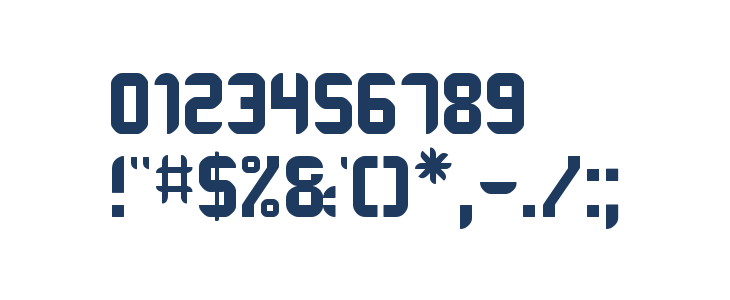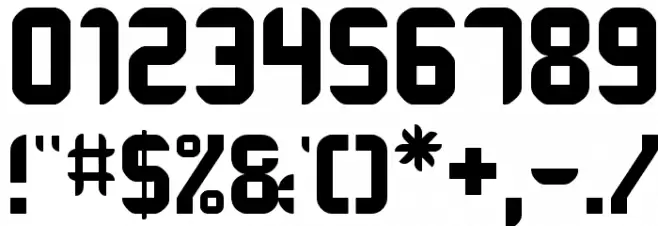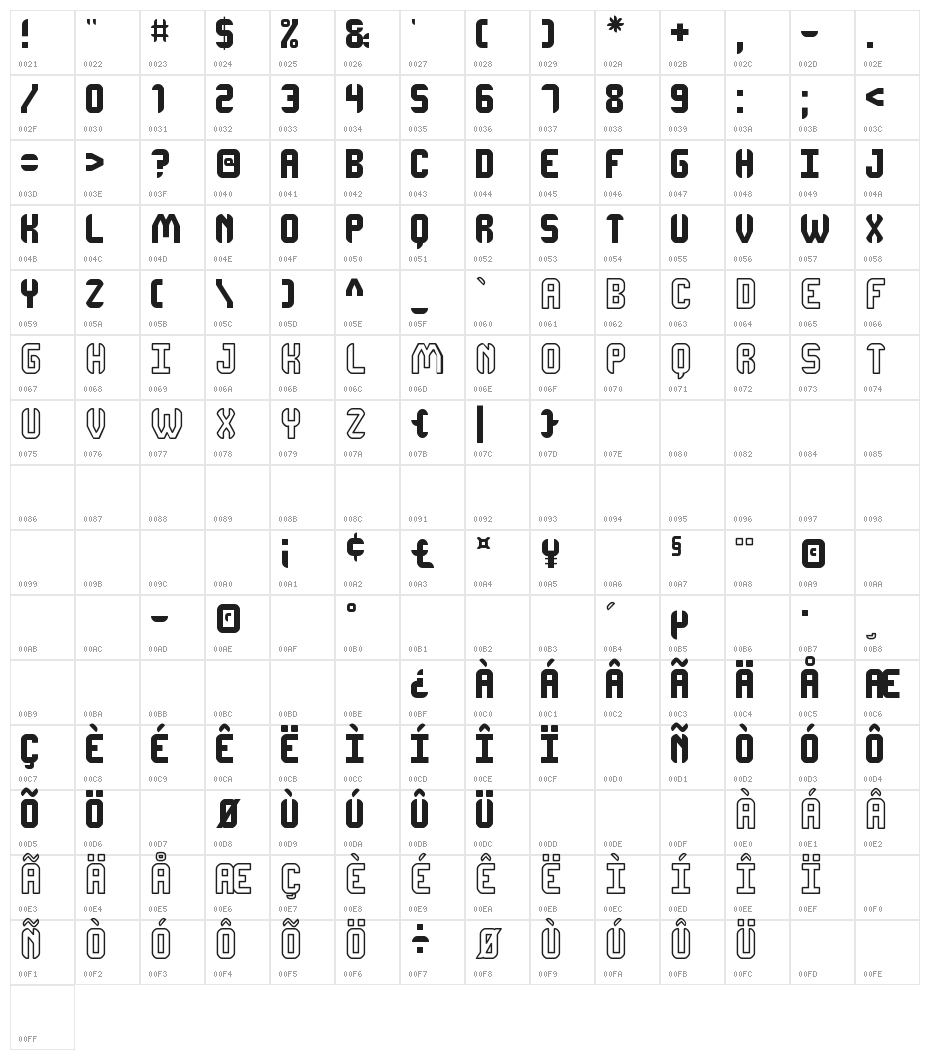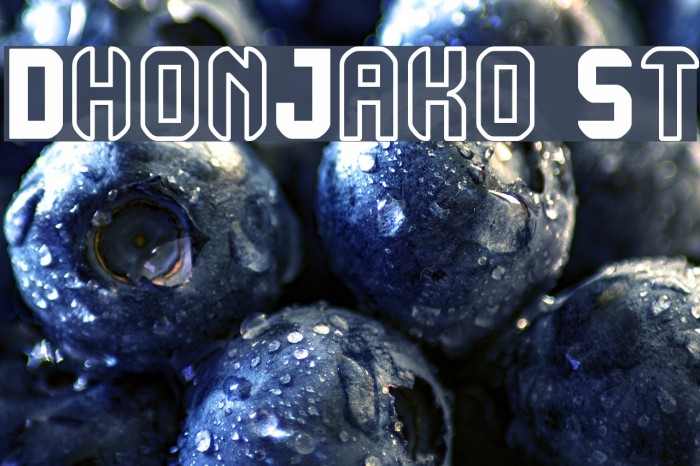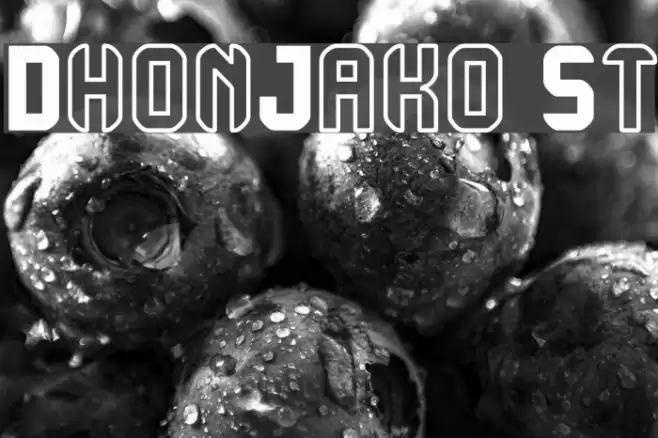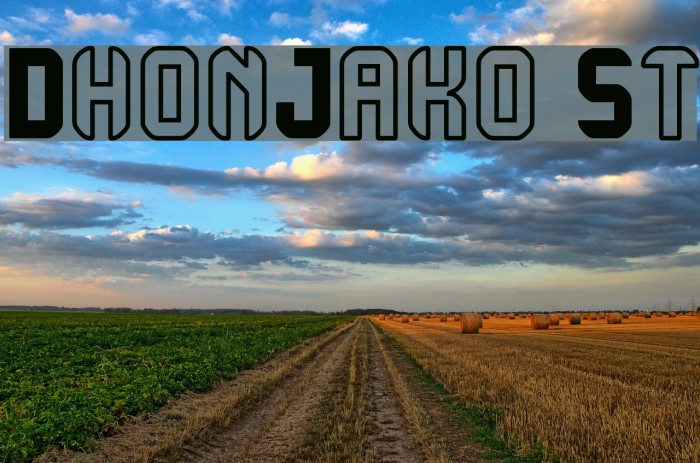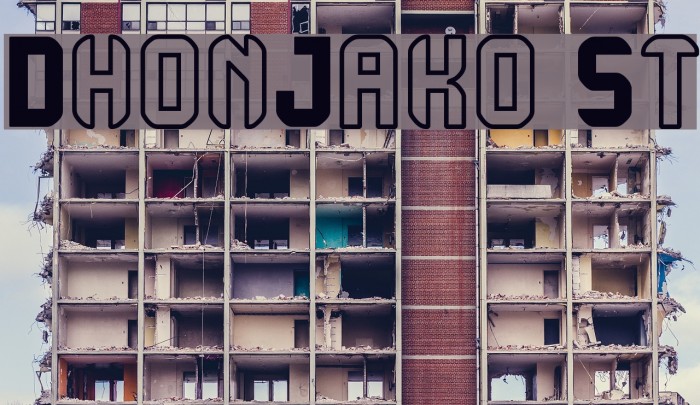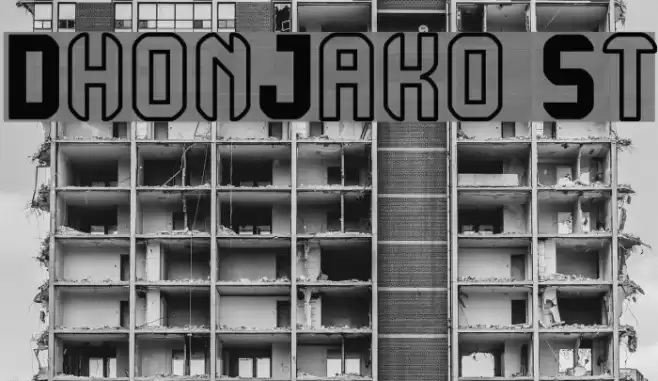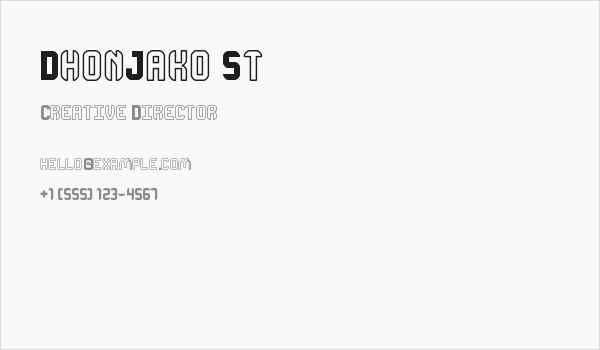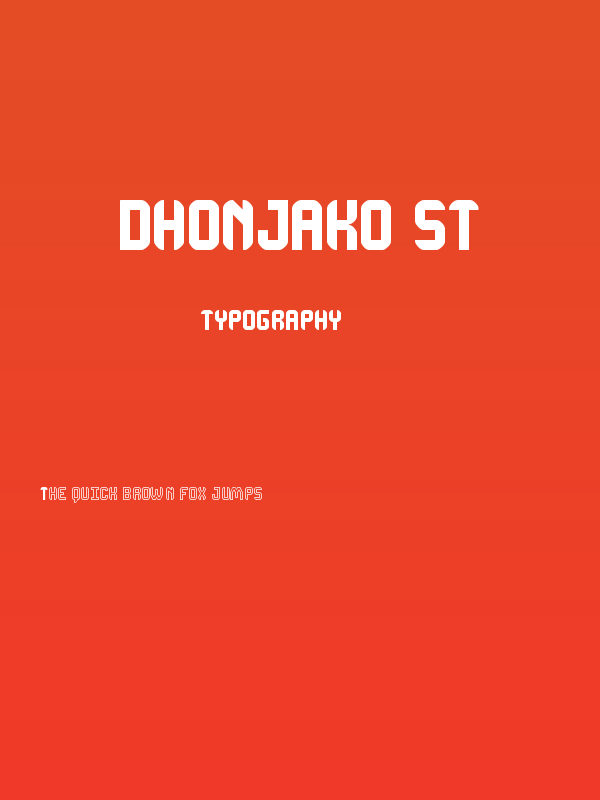
DhonJako St Font
DhonJako St Description
This font features a bold and geometric design with a modern and futuristic appeal. The uppercase letters are blocky and robust, creating a strong visual impact. The lowercase letters maintain the same geometric style, ensuring consistency throughout the typeface. The numbers are equally bold, making them stand out clearly. Special characters are designed to match the overall aesthetic, providing a cohesive look. The font's thick strokes and angular shapes give it a distinctive and memorable appearance, suitable for projects that require a contemporary and assertive typeface.
| Proposed Projects | Ideal for branding, posters, headlines, and digital interfaces that require a strong, modern look. |